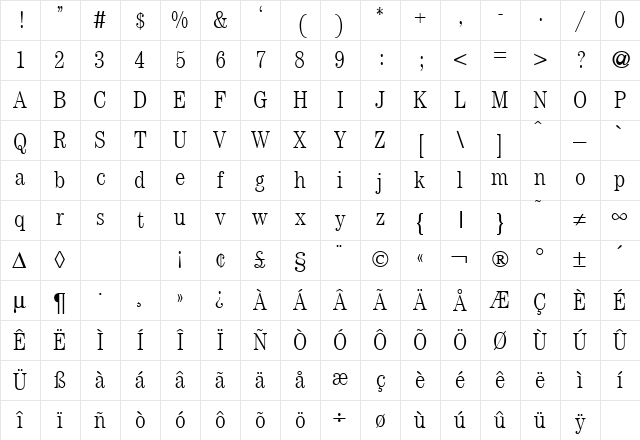
ModernCenturyCondLight Regular
Complete ModernCenturyCondLight Regular glyph index. Displaying only characters natively supported by ModernCenturyCondLight Regular font.
Design Context for ModernCenturyCondLight
ModernCenturyCondLight is a composed and adaptable typeface that performs quietly and consistently across a wide range of design contexts. Its slender proportions lend an understated elegance to any composition. Its narrow stance lets it pack a punch even in space-constrained designs.